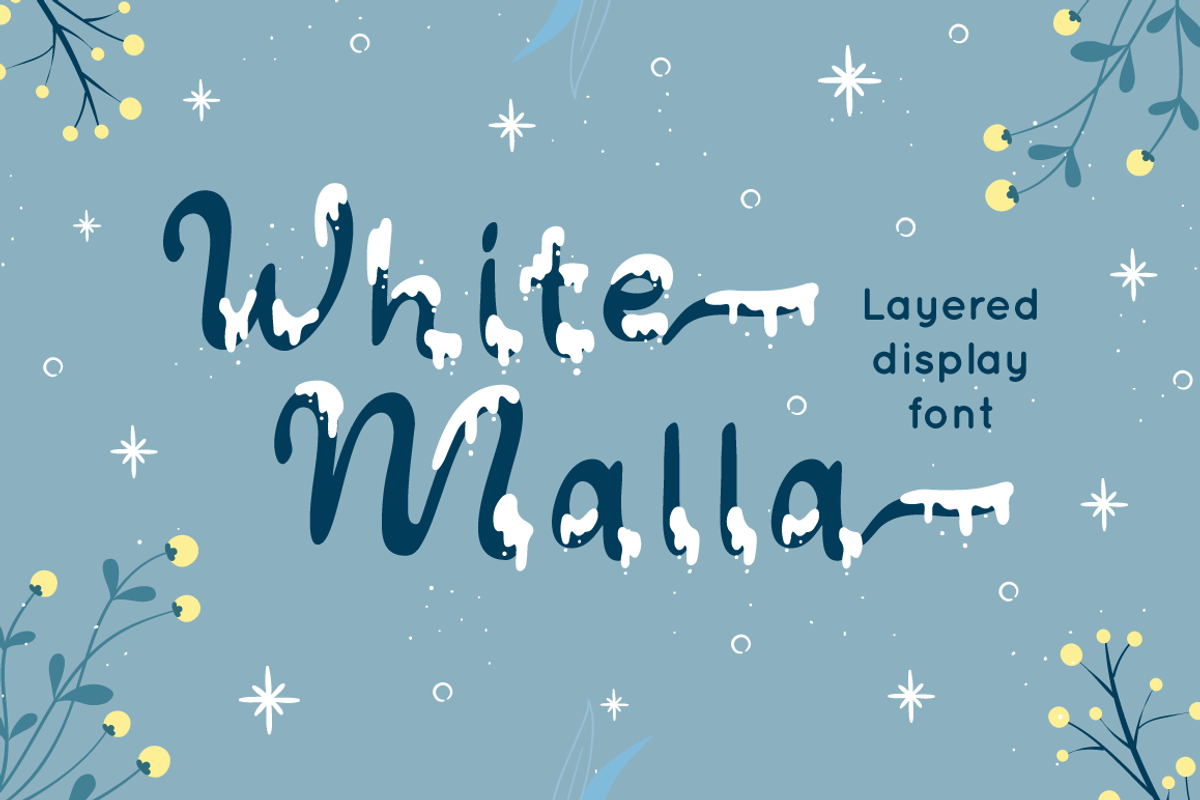
White Malla - Christmas Font Free Download
White Malla – Christmas Font Free Download is a festive and whimsical typeface designed to capture the magic and warmth of the holiday season. Please note: you must purchase this font for commercial use, but you can test it through a free download. With its decorative strokes, playful curves, and cozy charm, White Malla is perfect for Christmas cards, holiday invitations, seasonal branding, gift tags, and winter-themed social media graphics.
This font brings joy and cheer to every project—ideal for designers who want to infuse their work with festive spirit and handmade charm. Whether you're creating DIY holiday crafts or designing a cheerful product label, White Malla – Christmas Font Free Download delivers the perfect seasonal vibe. Fully compatible with Adobe Illustrator, Photoshop, Canva, and more. Download it today for personal use and let your holiday designs sparkle with the magic of White Malla.